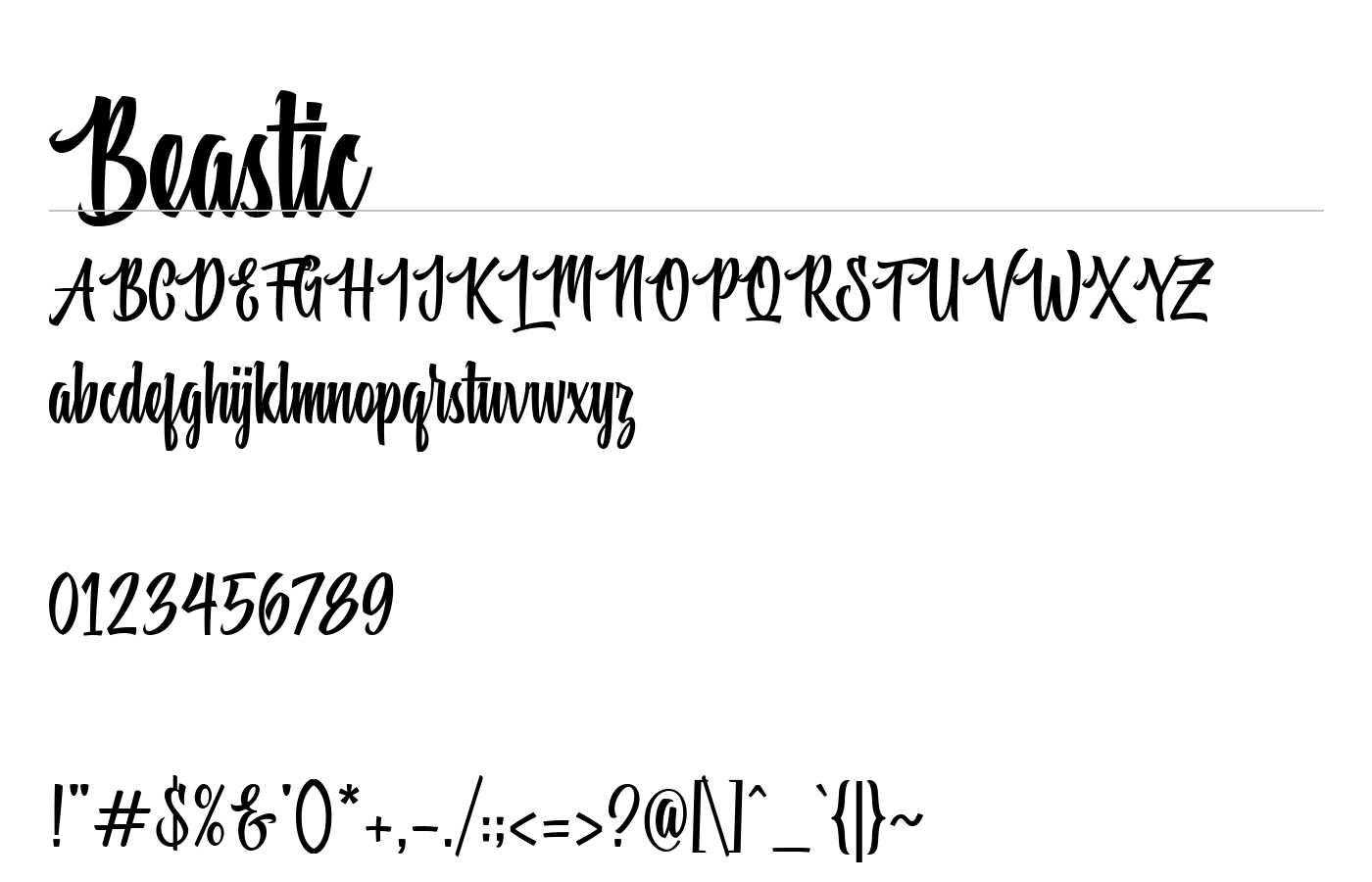
Beastic is a lively script font with a bold, hand-lettered style that combines playful charm with a strong personality. Its casual brush strokes and unique letterforms make it perfect for creative branding, logos, and eye-catching headlines where a friendly yet dynamic feel is desired. This font works well in designs that want to convey warmth and creativity with a modern, artistic touch.
Beastic Font
About Beastic Font